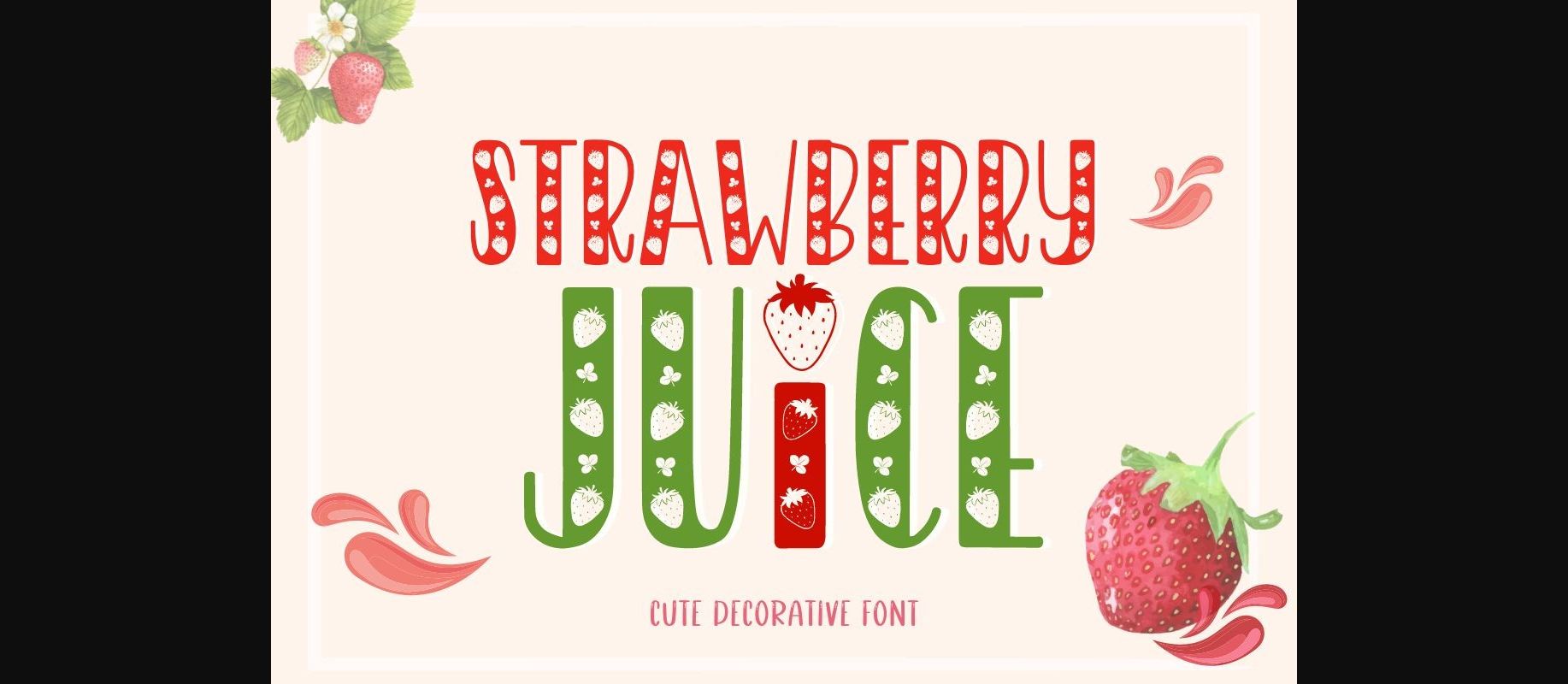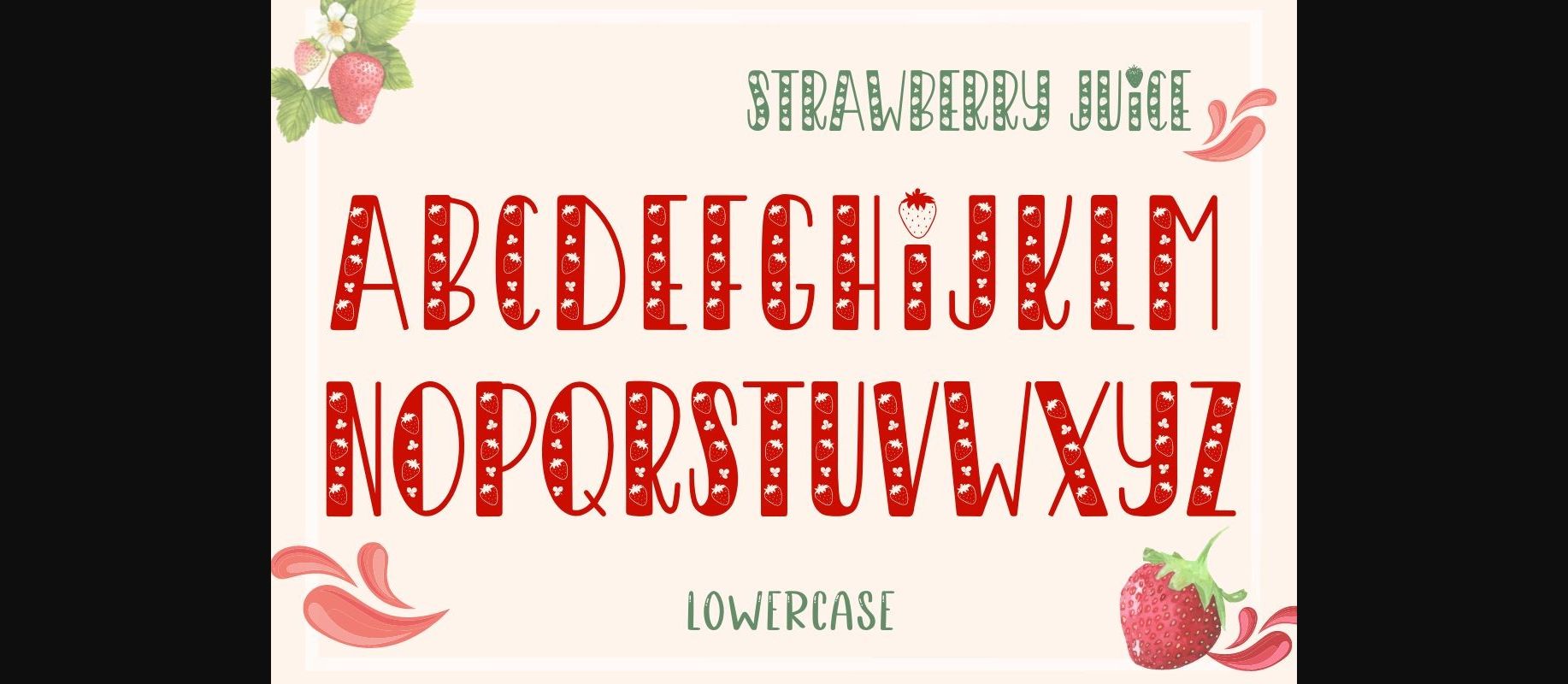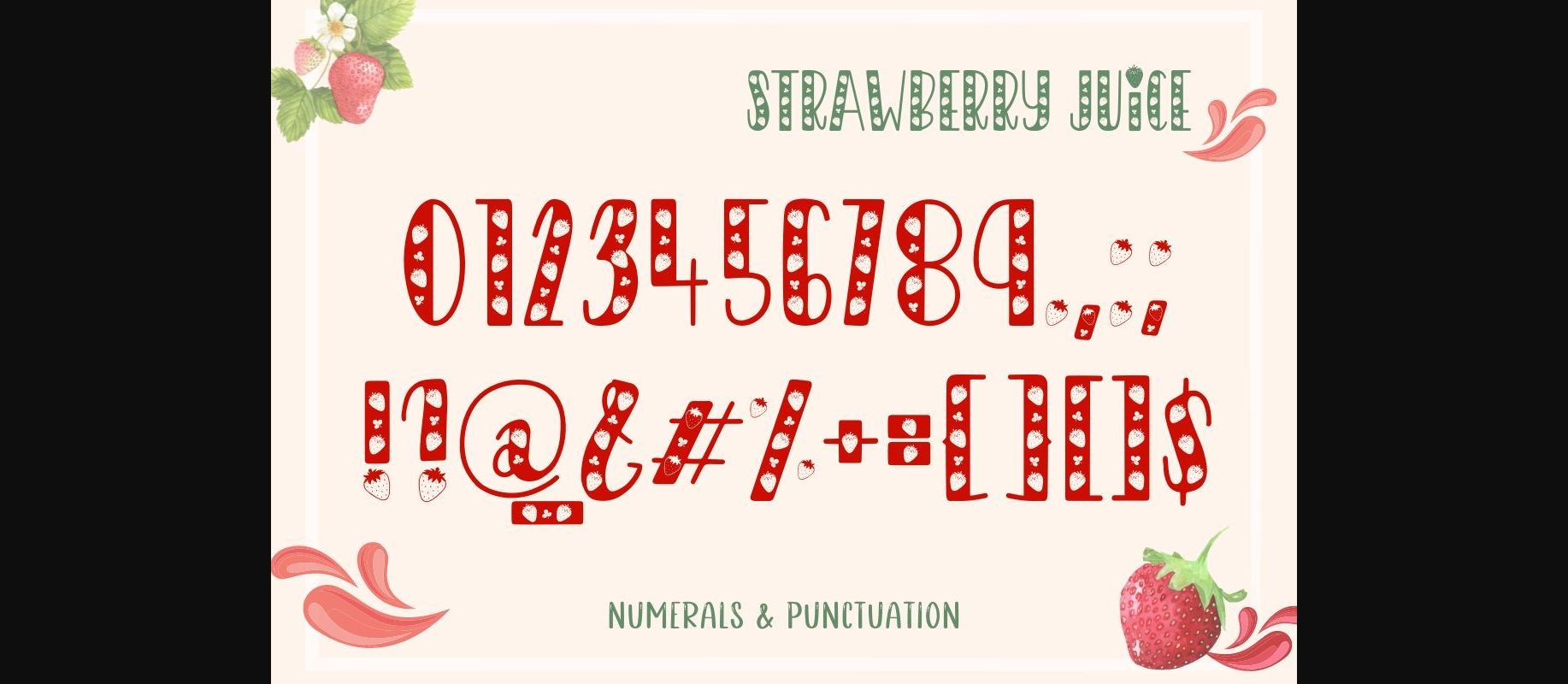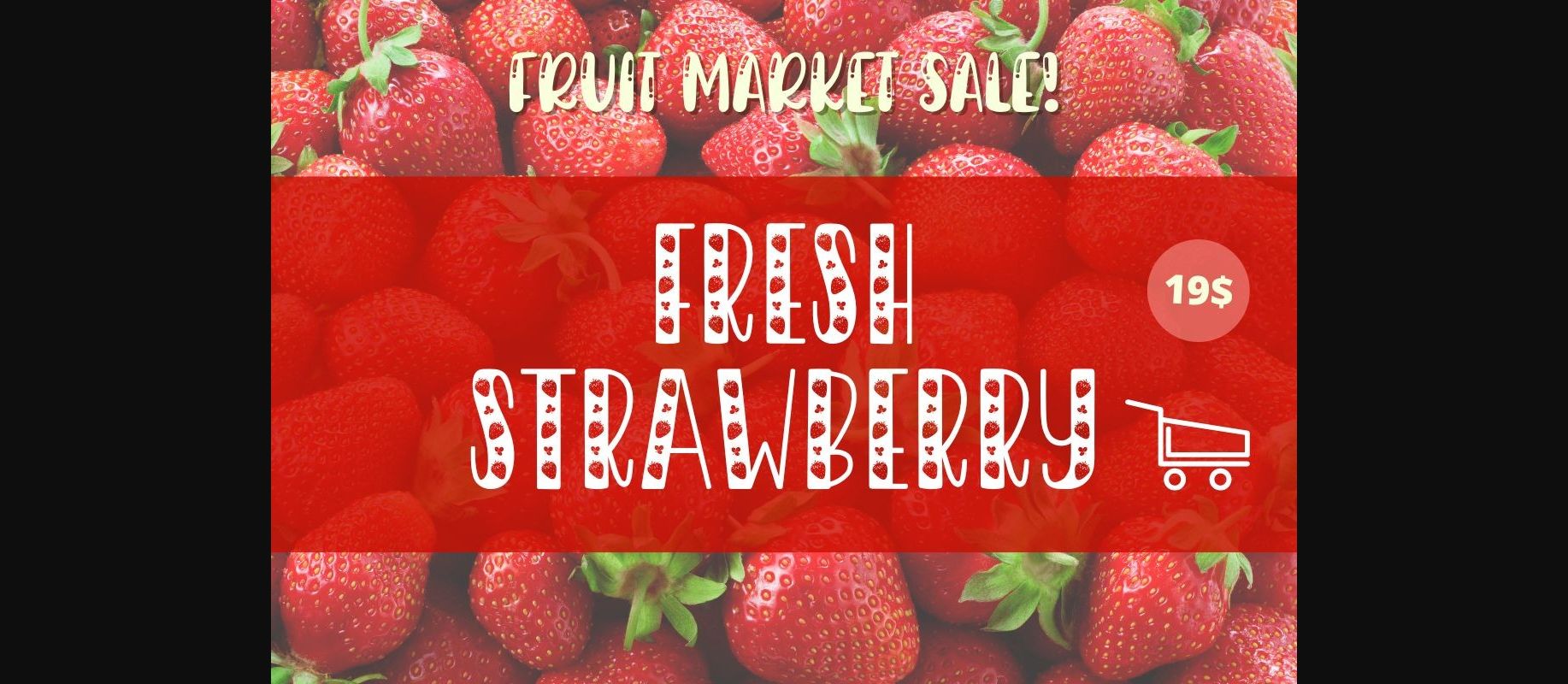
Strawberry Juice Font
About Strawberry Juice Font
Strawberry Juice is a cute and fun decorative font that combines strawberry elements with a handwritten font. It is perfect for creating a wide variety of new designs to match products such as banners, content, mugs, cards, shirts, stationery, social media posts, and more!